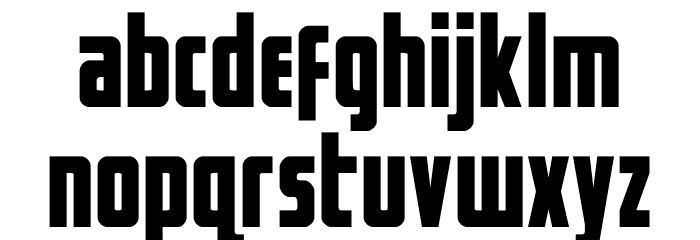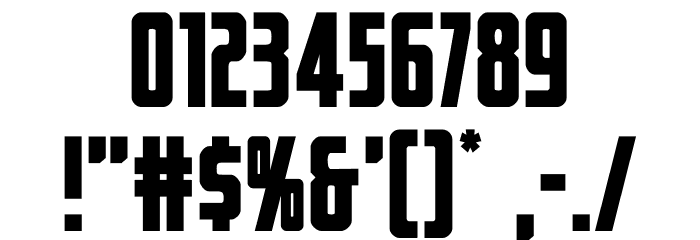
Captain Canaveral Font
This font features a bold, impactful design with strong geometric shapes and a modern aesthetic. The uppercase letters are tall and commanding, while the lowercase letters maintain a consistent style that complements the uppercase. The numbers are clear and easily readable, making them suitable for various applications. Special characters are included, adding versatility to the font. The overall look is clean and structured, with a slight vintage touch that adds character without compromising readability.
A bold, geometric font with a modern yet slightly vintage style.
- Font: Captain Canaveral
- Proposed Projects: Ideal for posters, headlines, branding, and any project requiring a strong visual impact.
- Overall Style: Modern, Vintage